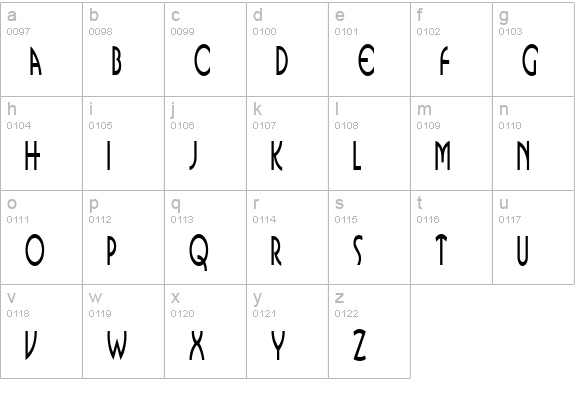
Bosnia D Normal is the standard, neutral variant in the Bosnia typeface family \xE2\x80\x94 well suited to general body text, paragraphs, and standard typographic work.
Bosnia D Normal is a versatile and modern font that offers a perfect balance between elegance and readability. With its clean lines and classic design, this font is ideal for a wide range of projects, from branding to editorial design. The smooth curves and sharp edges of Bosnia D Normal make it a standout choice for both digital and print applications. What makes Bosnia D Normal even more appealing is that it is available for free download at FontsMarket.com. This means that you can easily access this high-quality font without any cost, making it a valuable addition to your font library. Whether you are a designer, student, or business owner, Bosnia D Normal is sure to enhance your projects with its timeless appeal and versatility. Download it today and elevate your designs with this exceptional font.